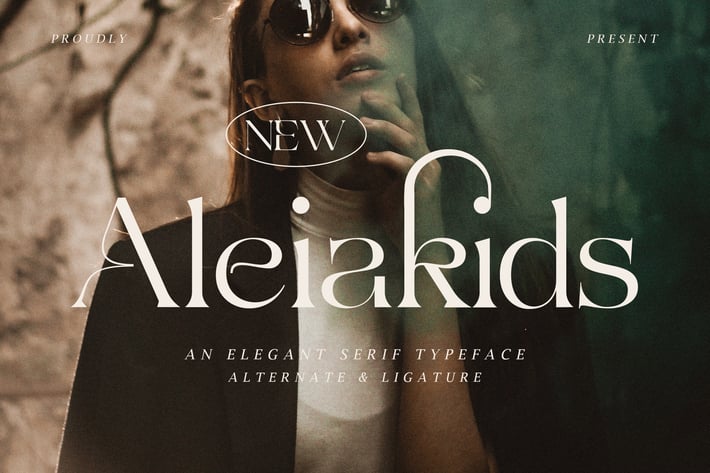
Aleiakids - An Elegant Serif Typeface
Introducing "Aleiakids" - an elegant serif typeface that exudes sophistication and timeless charm, perfect for elevating your designs.
With its graceful and refined letterforms, "Aleiakids" adds a touch of classic beauty to any project. Each character is meticulously crafted to strike the perfect balance between elegance and readability, making it ideal for luxurious branding, editorial layouts, exquisite invitations, and more.
Embrace the timeless allure of "Aleiakids" as it effortlessly enhances your designs. Whether you're creating prestigious logos, captivating book covers, regal certificates, or elegant social media graphics, this font will captivate your audience with its elegant and serif style.
Step into a world of refined typography with "Aleiakids" and let your designs speak with grace and sophistication.
– Lowercase
– Ligature
– Alternate